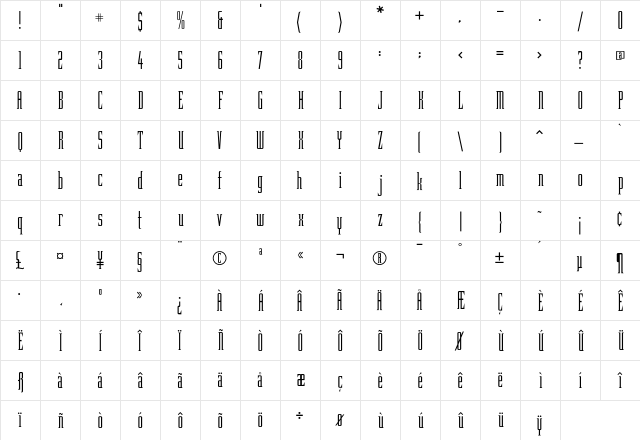
BubbaLove Light
Design Context for BubbaLove Typeface
BubbaLove offers clean, dependable letterforms without strong stylistic allegiance, making it a practical choice for designers who need flexibility. Its slender proportions lend an understated elegance to any composition.